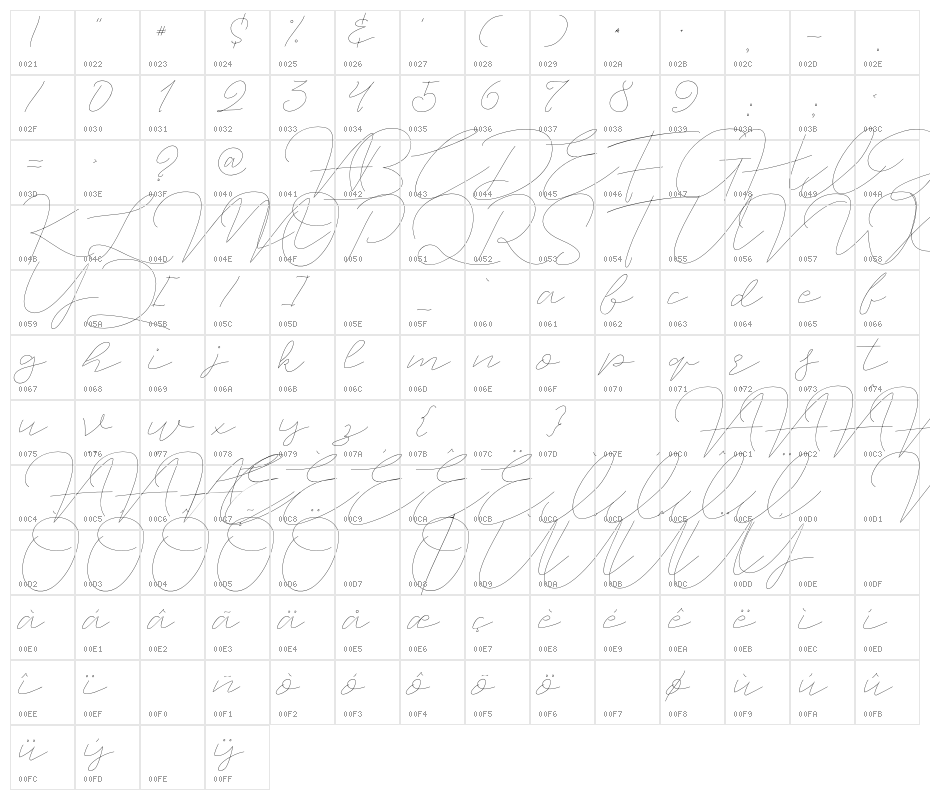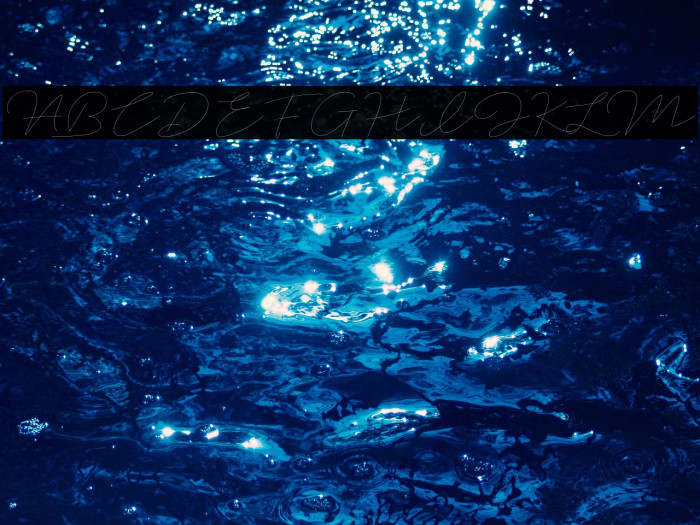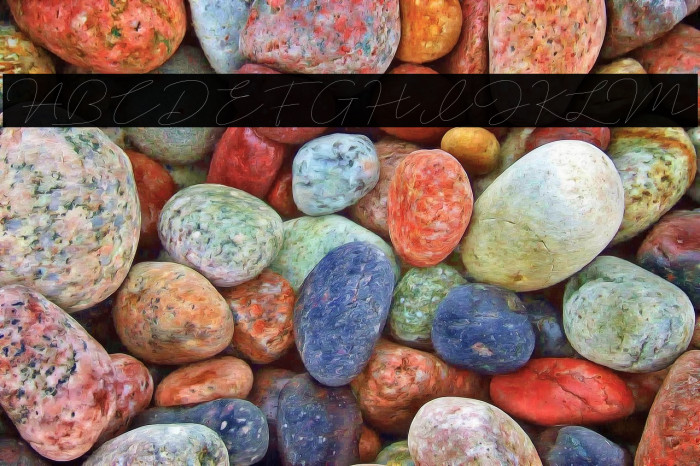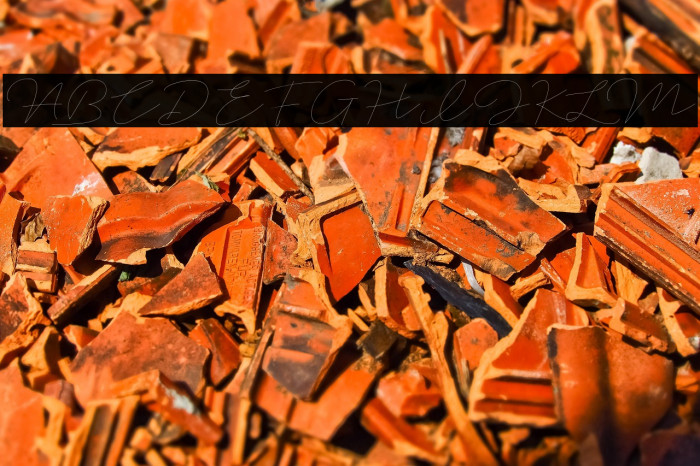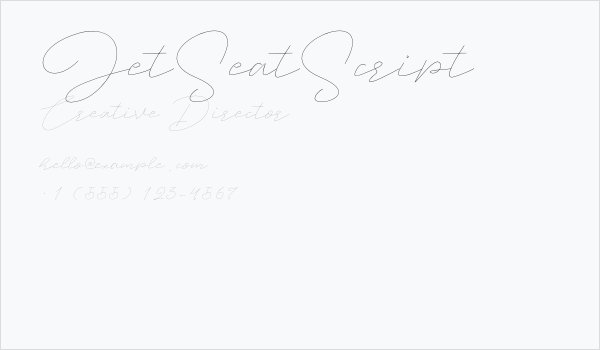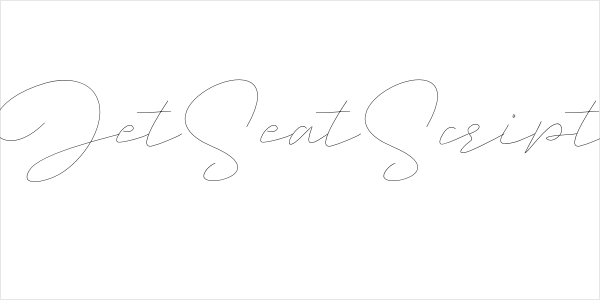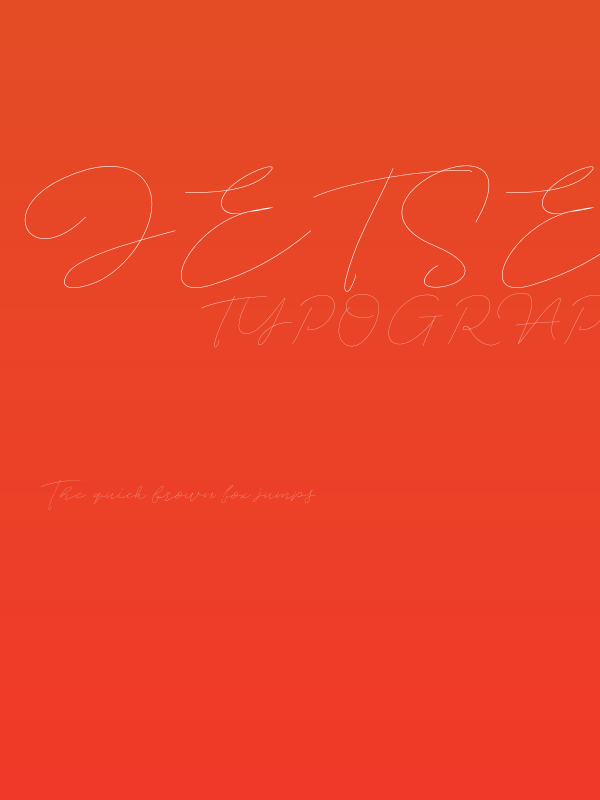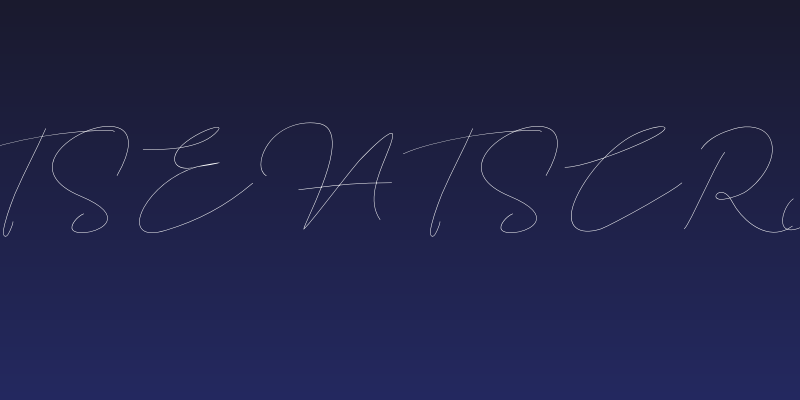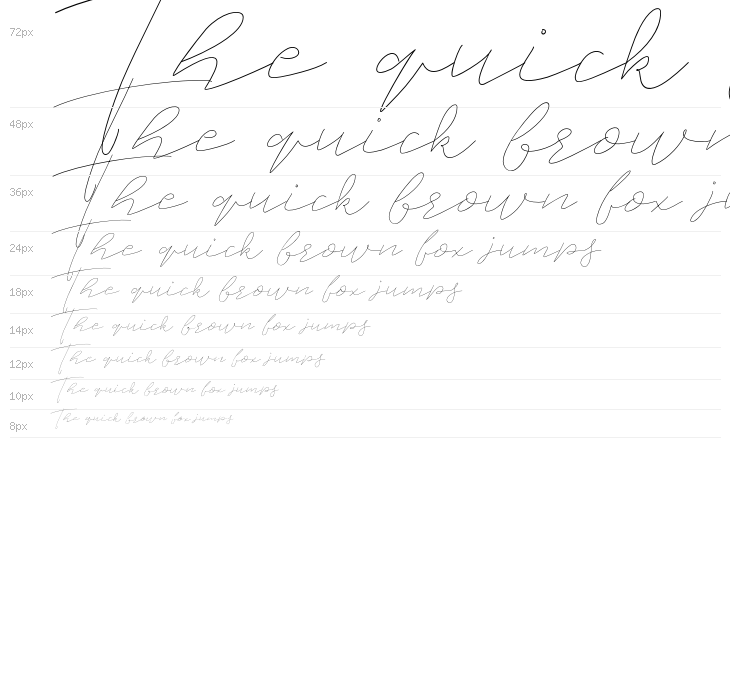
JetSeatScript Font
JetSeatScript Description
This font exudes elegance and fluidity, characterized by its cursive, handwritten style. The letters are connected in a smooth, flowing manner, reminiscent of traditional calligraphy. The uppercase letters maintain a consistent height, while the lowercase letters exhibit graceful loops and curves. The numerals are designed with a similar fluidity, ensuring cohesion across all characters. Special characters are crafted with the same attention to detail, enhancing the font's overall aesthetic. This font's delicate strokes and refined appearance make it ideal for projects that require a touch of sophistication.
| Overall Style | Elegant, Handwritten |
| Use Case | Logos, Invitations, Personal Branding |
| Proposed Projects | Ideal for wedding invitations, greeting cards, personal branding, and elegant logo designs. |